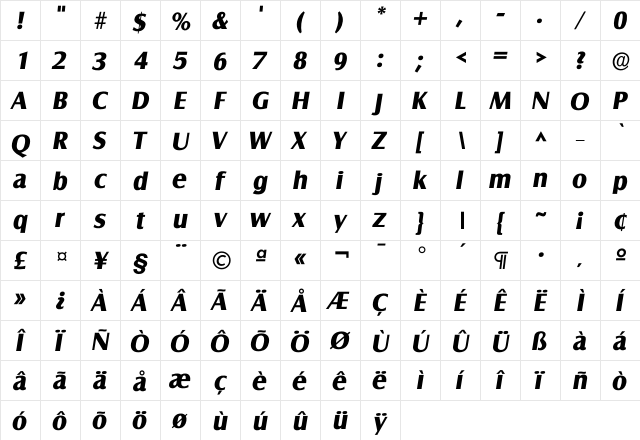
Isalzburg Bold
Design Context for Isalzburg Typeface
Isalzburg takes a measured approach to typography — its balanced proportions and neutral character make it a reliable workhorse for both digital and print work. Its bold stroke weight gives it real presence on the page.